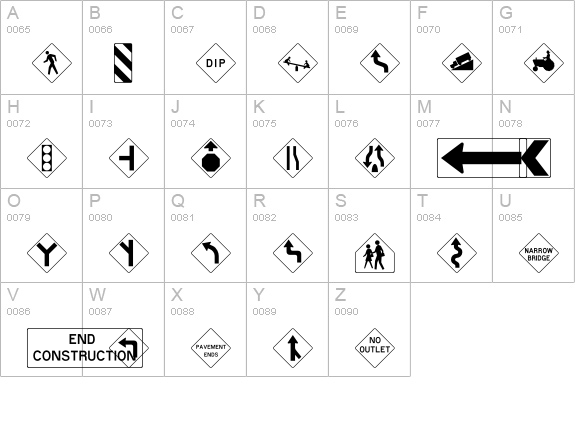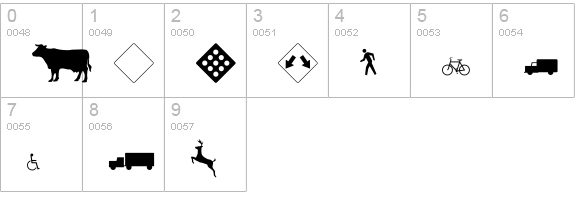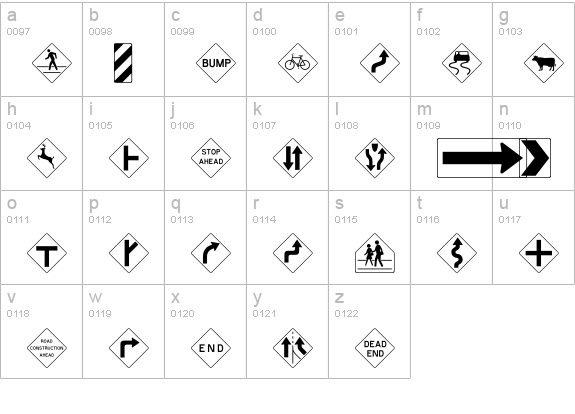
RoadWarningSign Font Details
Introducing RoadWarningSign font, a bold and attention-grabbing typeface designed to convey important messages with clarity and impact. This unique font features sturdy lines and sharp edges, reminiscent of traditional road warning signs, making it perfect for signage, posters, and other graphic design projects where visibility is key. The RoadWarningSign font is versatile and can be used in various contexts, from safety campaigns to urban-themed designs. Best of all, RoadWarningSign font is completely free to download at FontsMarket.com, allowing you to add this powerful typeface to your collection without any cost. Don't miss out on the opportunity to enhance your designs with the striking and bold RoadWarningSign font today!